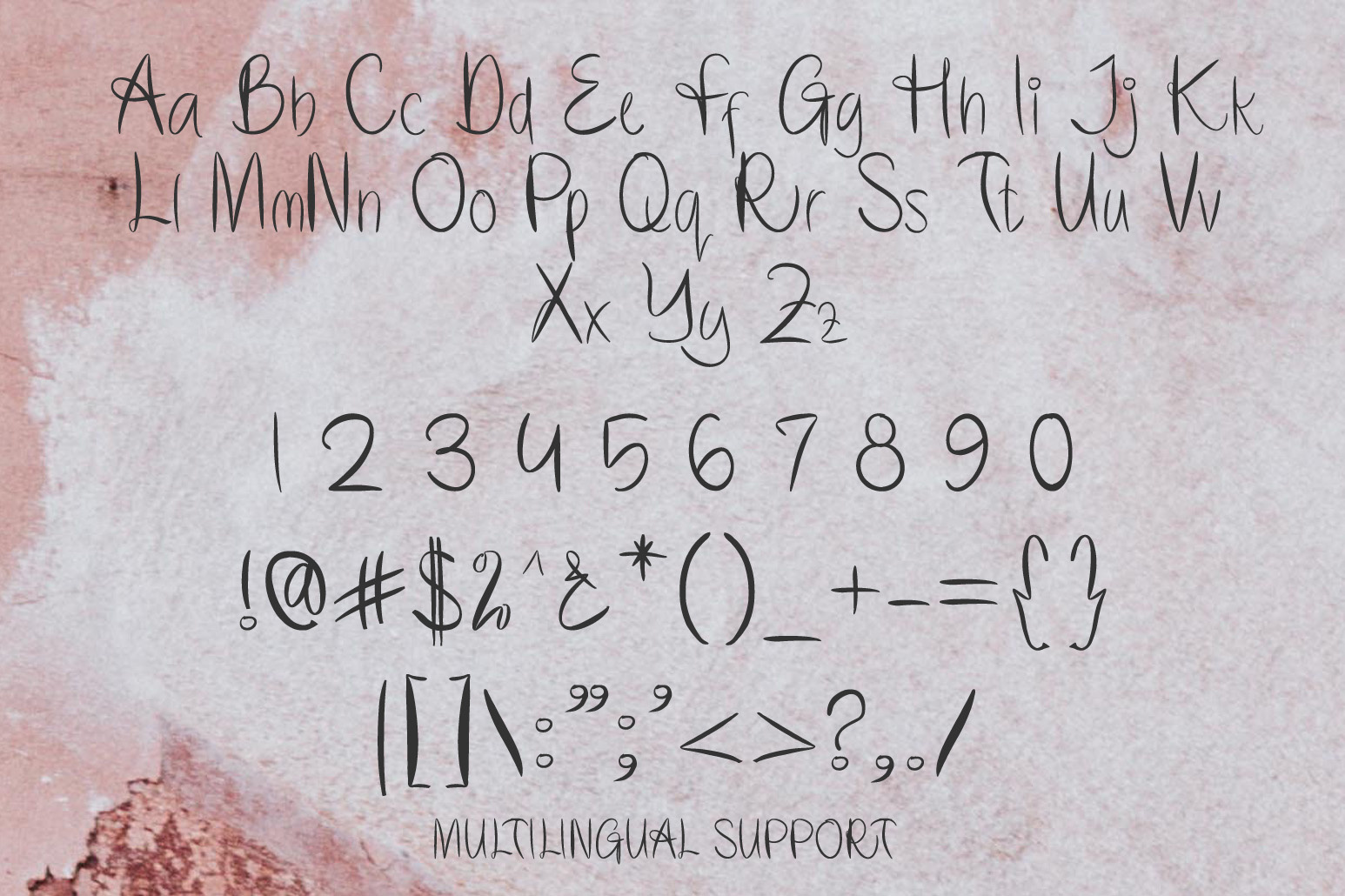
Softly is a cute and quirky handwritten font. It embodies playfulness and authenticity and is the perfect choice for any children’s activity or school project.